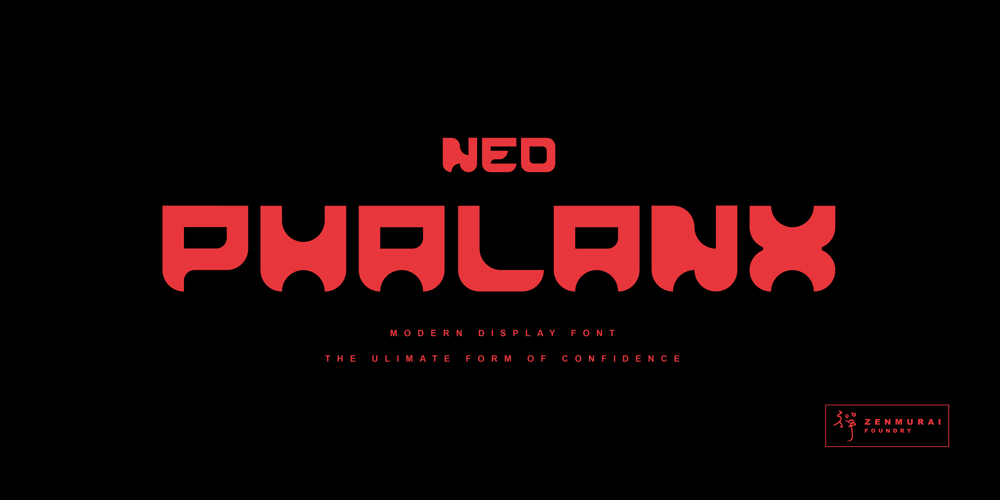
Neo Phalanx Font Family was designed by HTL Ryan and published by Zenmurai. Neo Phalanx contains 1 styles and family package options. Neo Phalanx is a rectangular, circular & curvy modern display sans inspired by Ancient Greek mass military formation. The difficulty of make this font is balancing rounded corner & sharp edge. There are letters like “M W A H R N K S Z” provides a unique personality in the title display. Numbering and punctuations also designed in unique styles to deliver different visual language.This font is suited for variety of applications from poster to branding, advertising, digital.